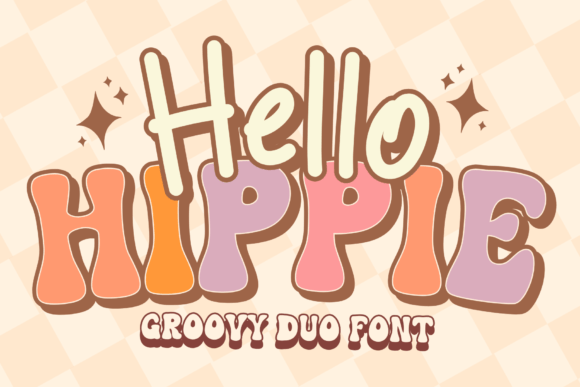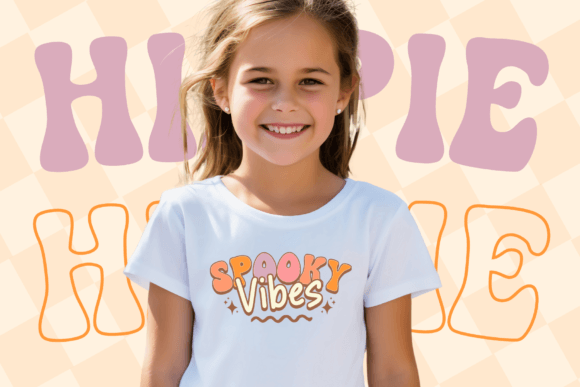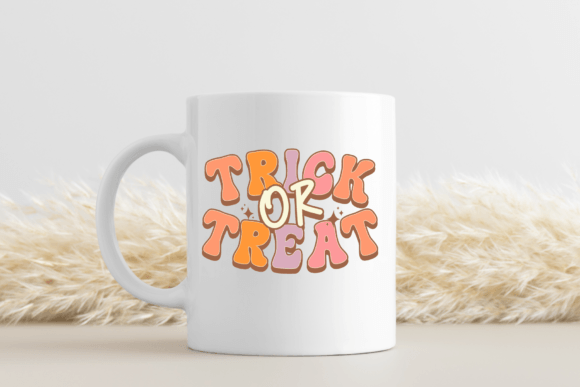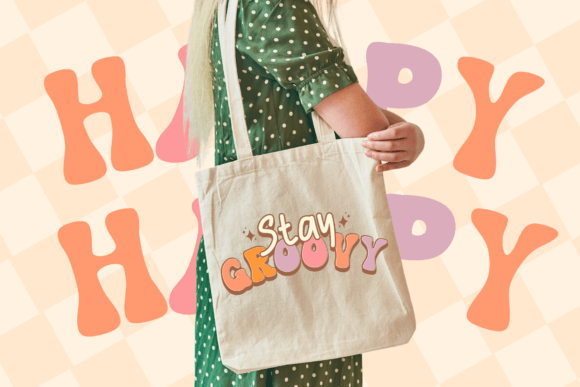
Hello Hippie Font
About the Hello Hippie Font
Step up your design game with Hello Hippie Font, a font that exudes confidence and style. Hello Hippie is a stylish retro duo font, combining a display and handwritten typeface that exudes a cool and groovy aesthetic. Ideal for all your hippie-inspired designs, It embodies playfulness and authenticity and is the perfect choice for all your favorite projects, or even for blog posts, logos, branding, ads, invitations, greeting cards, planners, photo albums, decorations, and much more. Add it to any of your designs, and enjoy the results!
Hello Hippie Font shines brightest in display applications such as headlines, logos, and short-form text on posters or packaging. Its playful nature makes it ideal for brands targeting a younger demographic or those with a retro/vintage aesthetic. Avoid using it for lengthy body text or UI elements; its informal style is less legible at smaller sizes.
The overall personality is undeniably playful and carefree, with a touch of retro boldness. It’s a strong choice for projects emphasizing fun, freedom, and a sense of nostalgia.
Hello Hippie Font Usage Examples
Hello Hippie Font Example